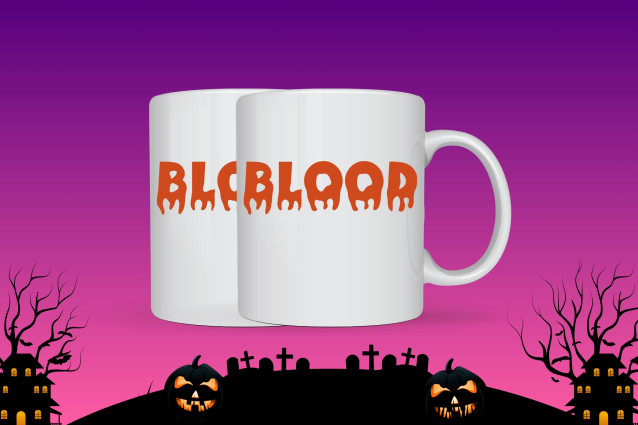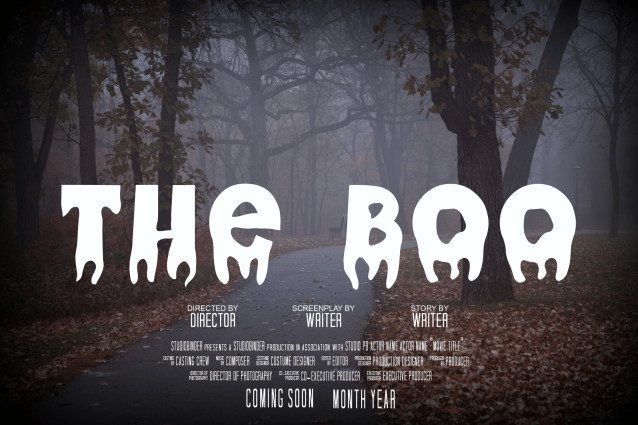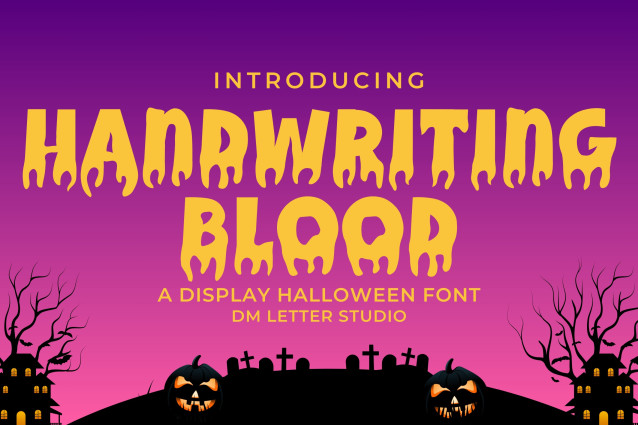
Handwriting Blood Font
Handwriting Blood Font is a chilling handwritten display font that evokes the eerie essence of horror with dripping ink strokes and unsettling letterforms. Designed to resemble blood-written script, this font is perfect for Halloween projects, horror movie titles, spooky posters, haunted invitations, and themed digital content. Its organic handwriting style combined with grotesque dripping effects delivers a terrifying yet playful edge to any design.